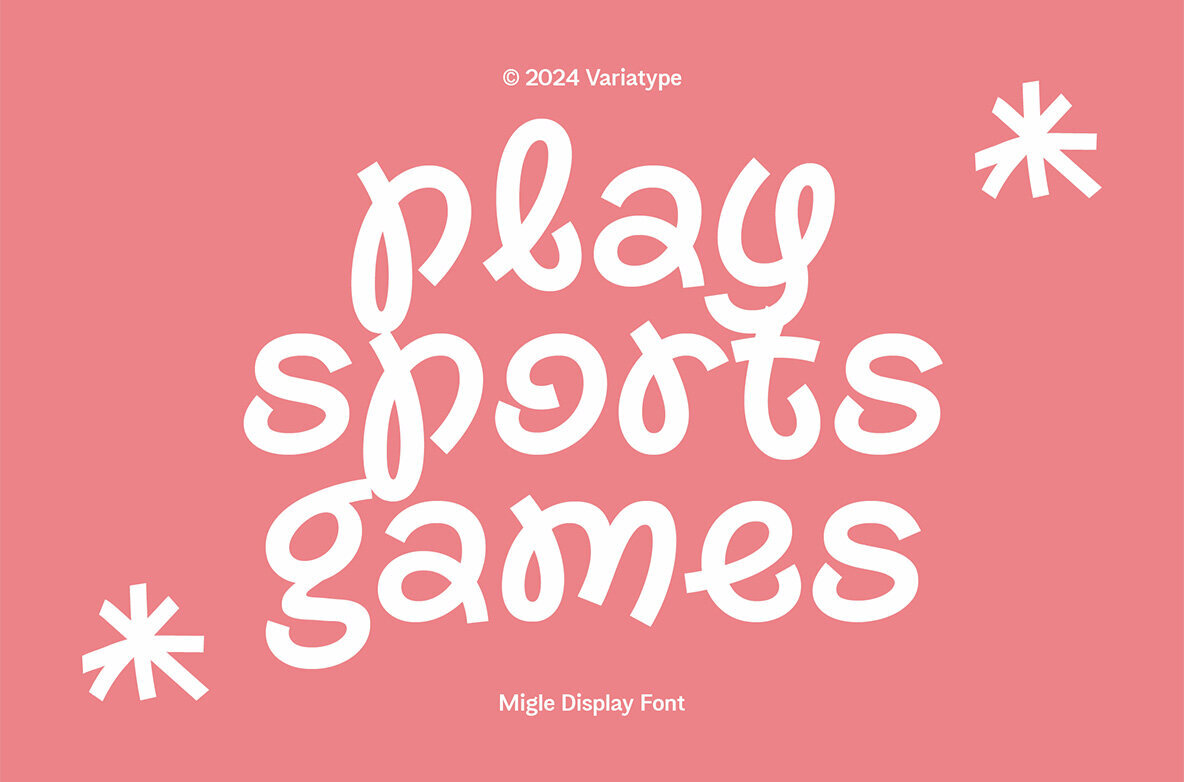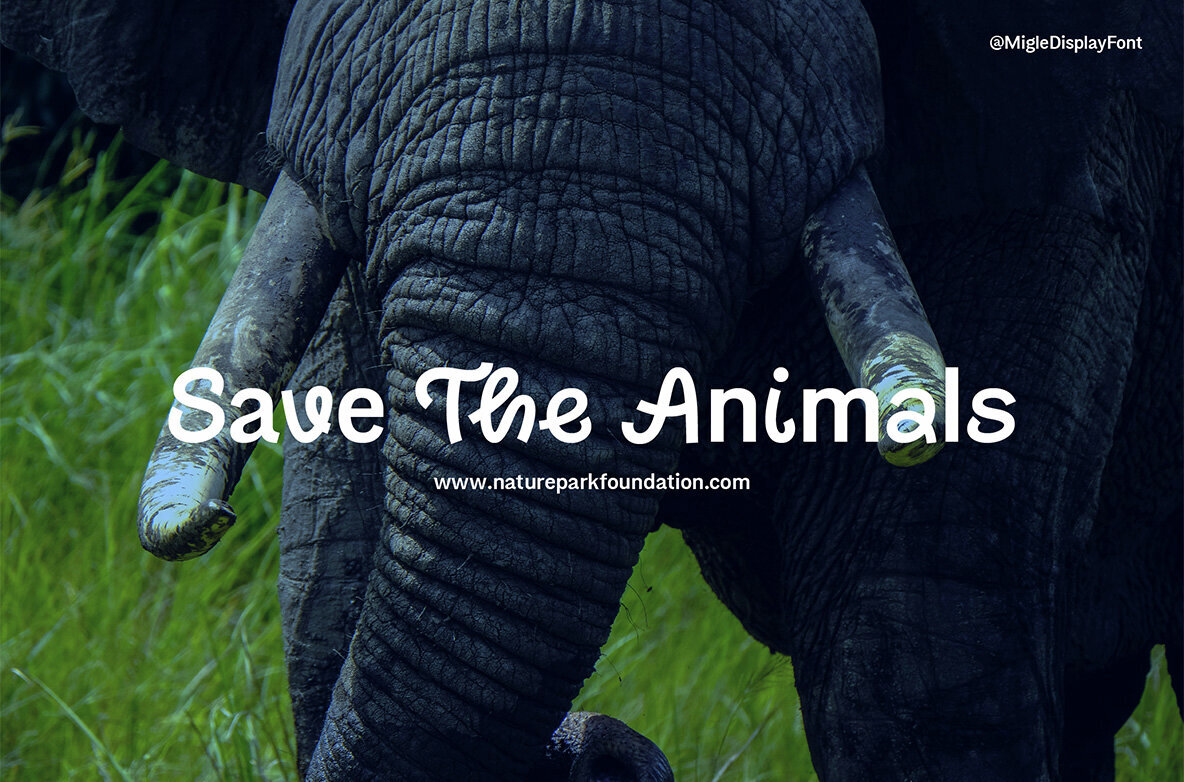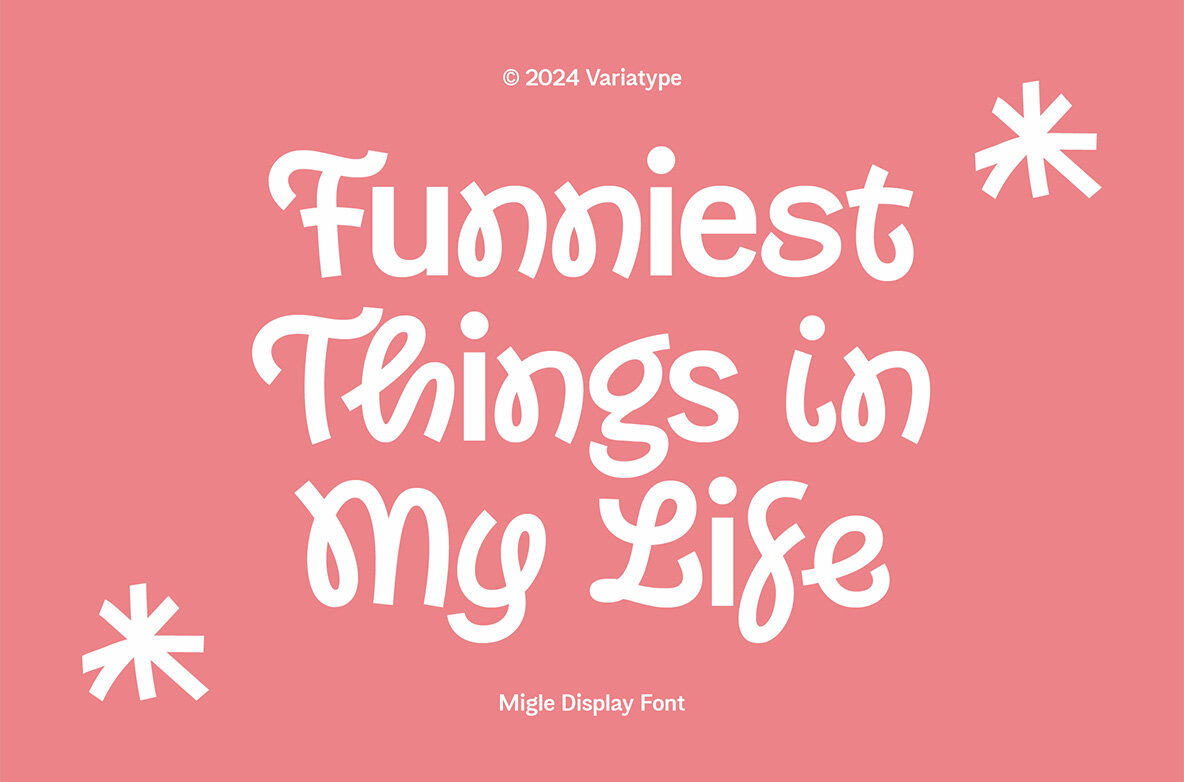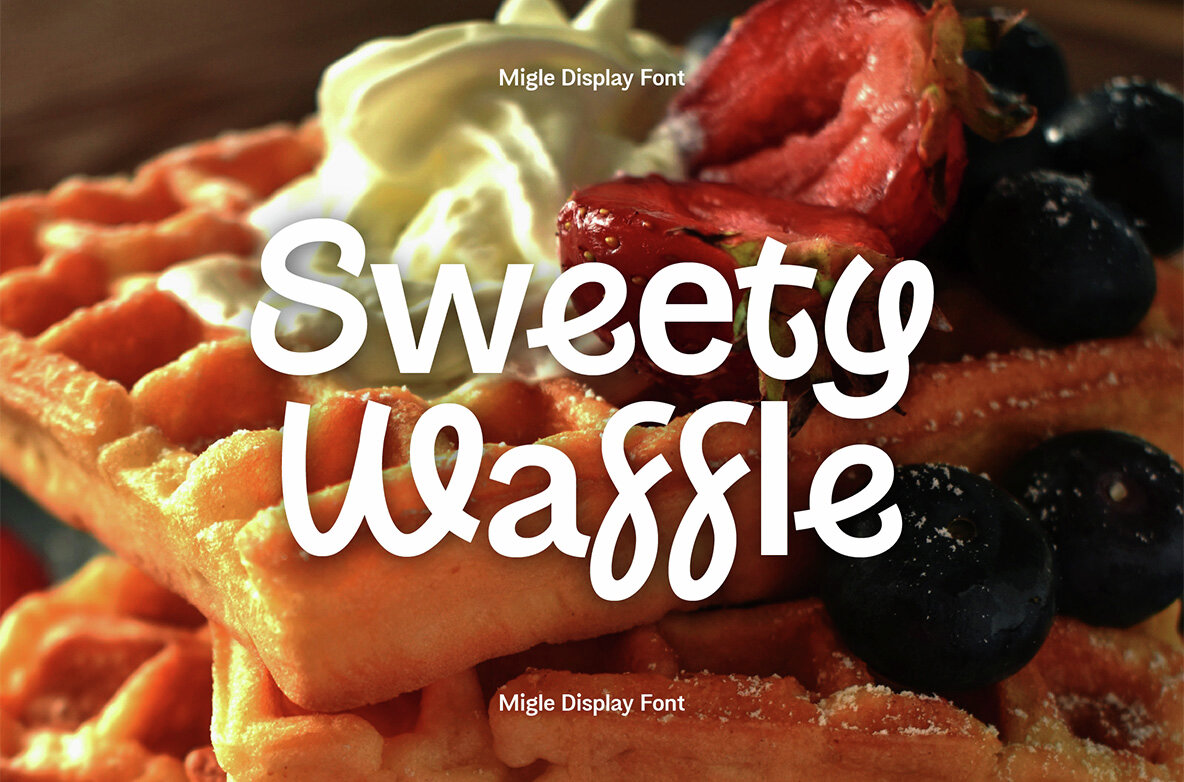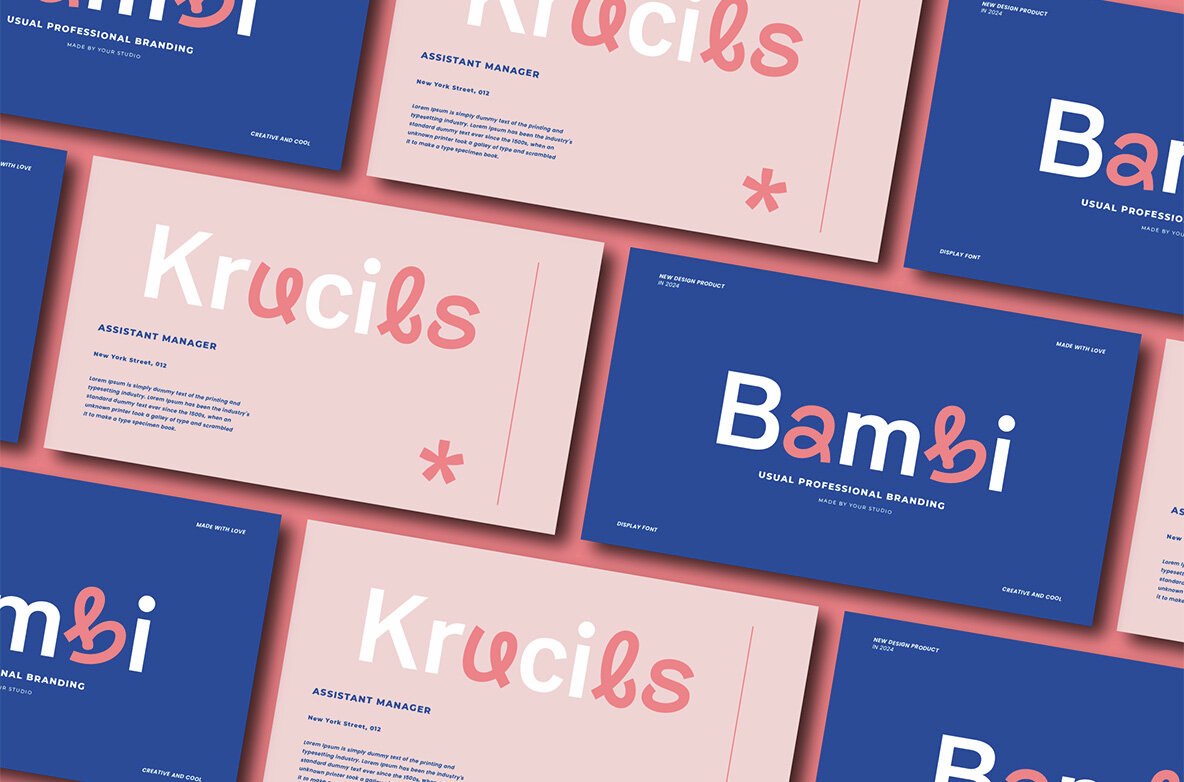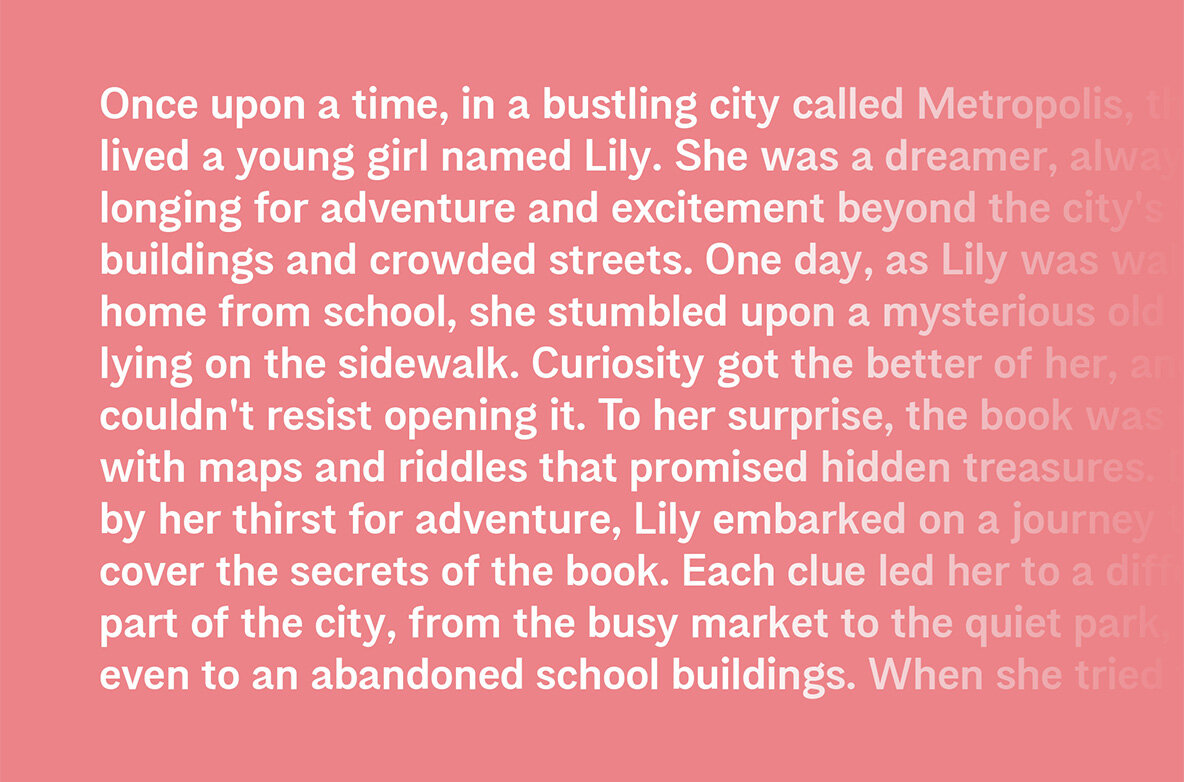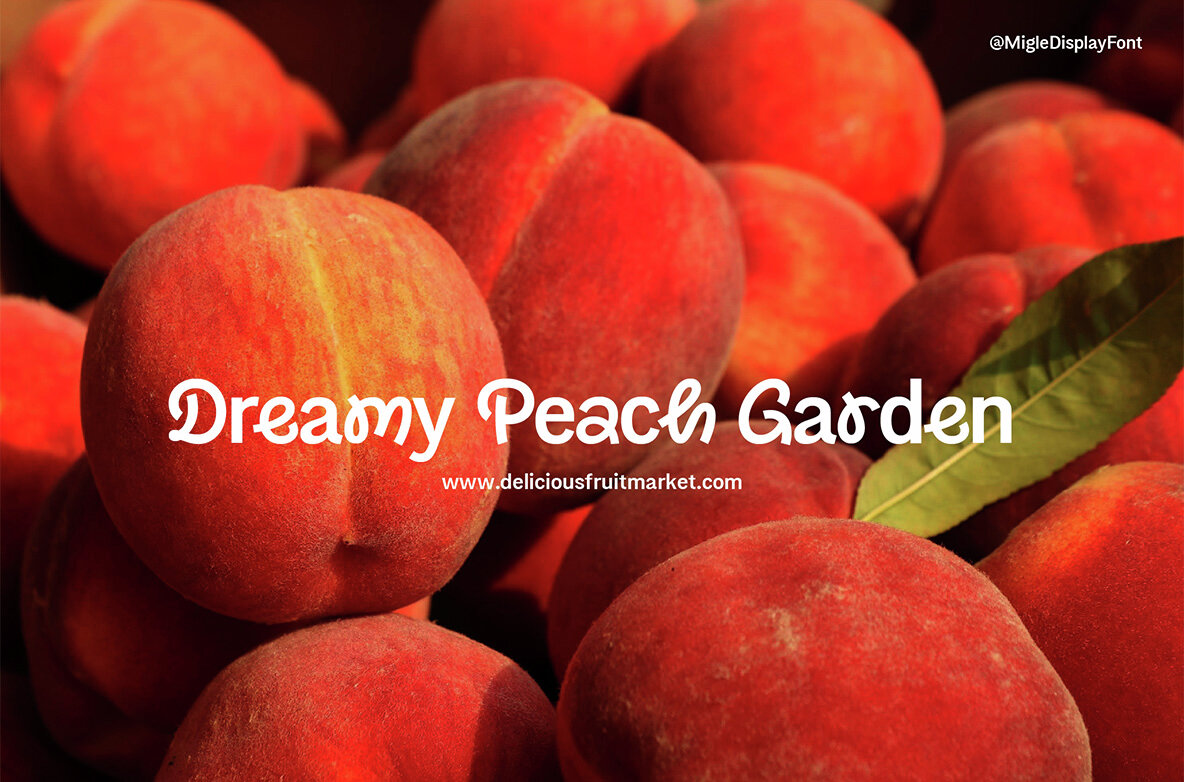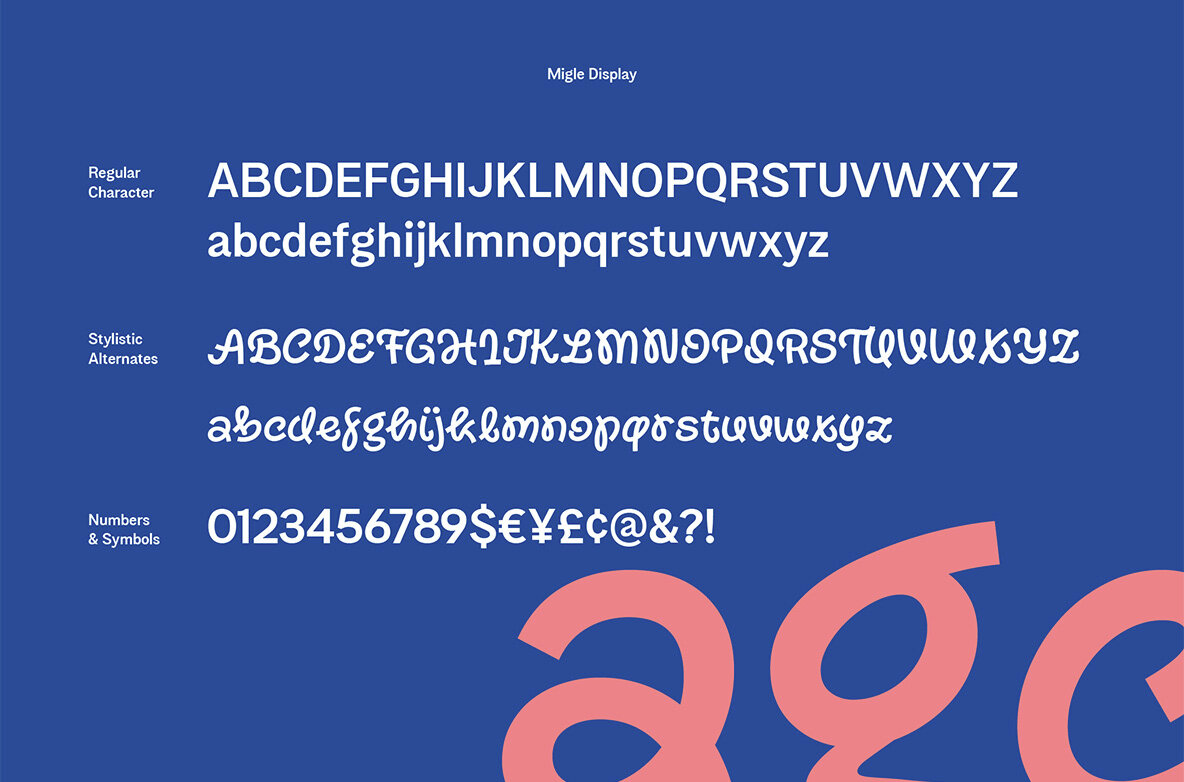
Migle Display Font
Migle Display Regular
Migle Display is a whimsical and vibrant sans-serif font that brings joy and creativity to any design. With its charmingly irregular letterforms and playful curves, Migle Display exudes a sense of fun and spontaneity. Perfect for headlines, logos, and branding projects, this font adds a touch of youthful energy and personality. Whether used in print or digital media, Migle Display stands out with its unique character and distinctively cheerful demeanor, making every design project a delightful adventure.